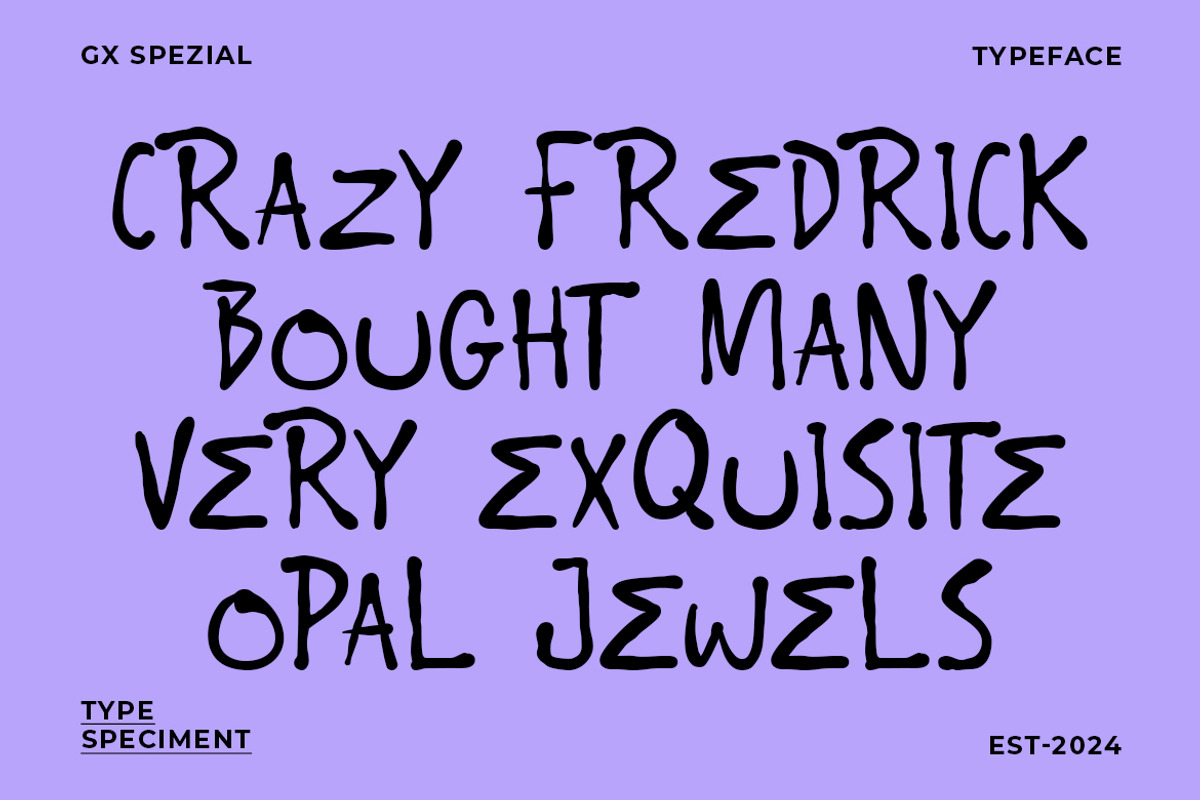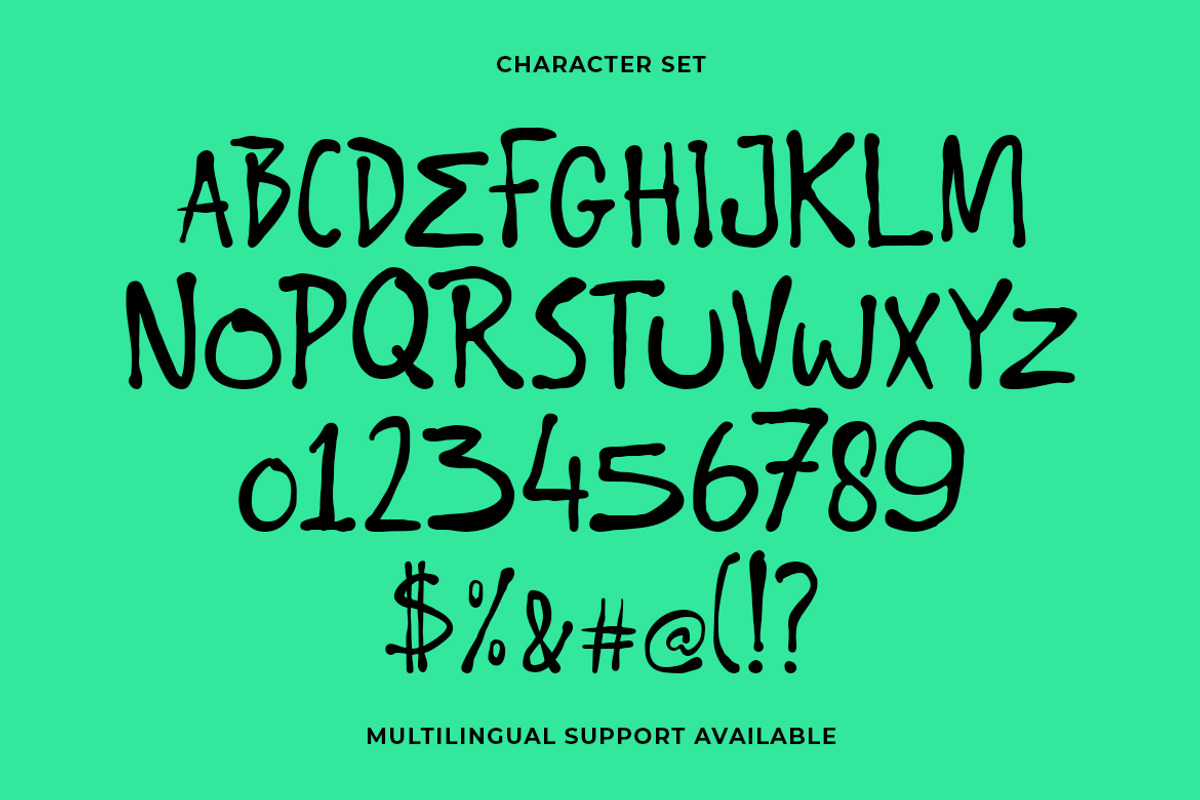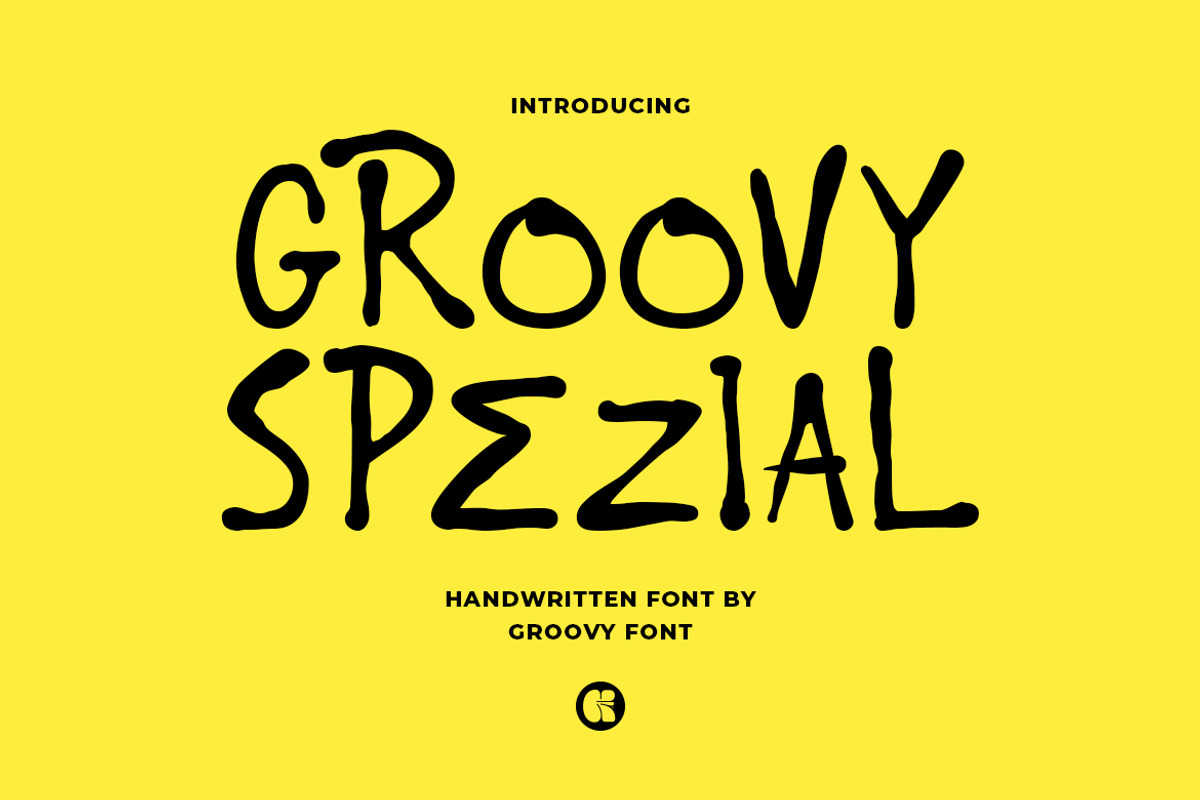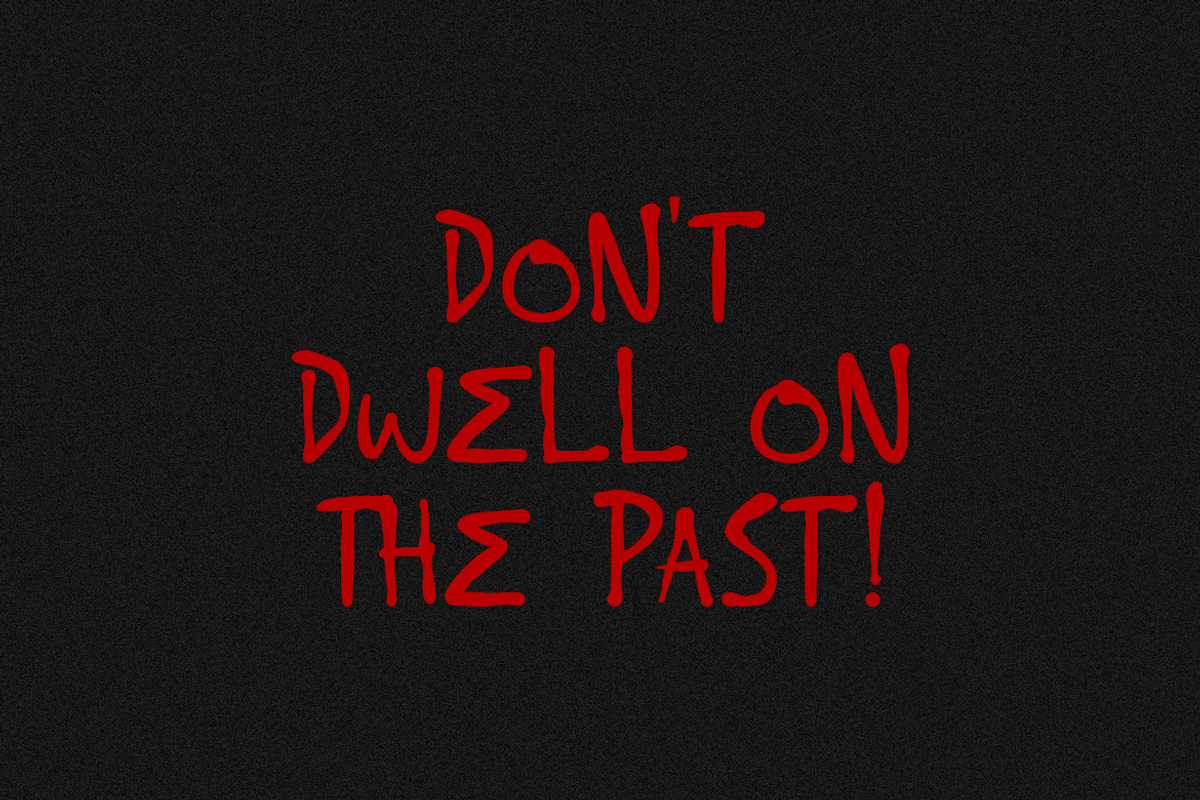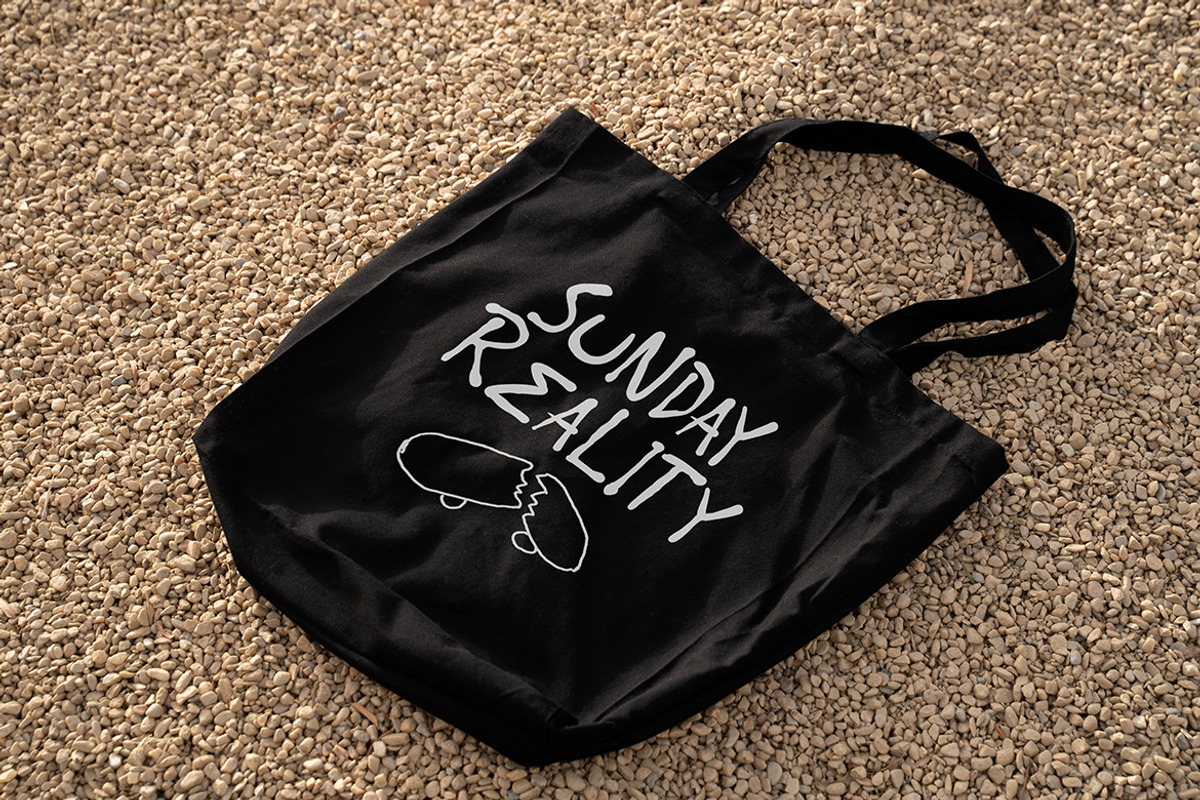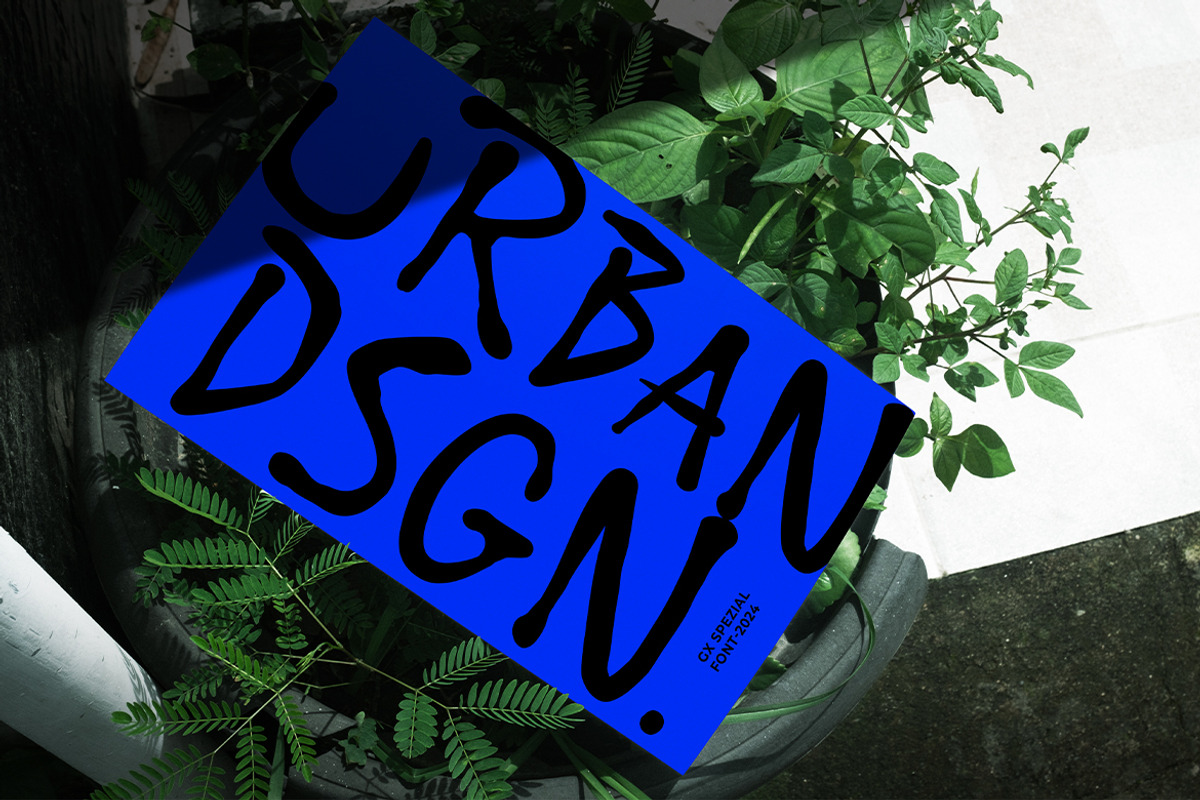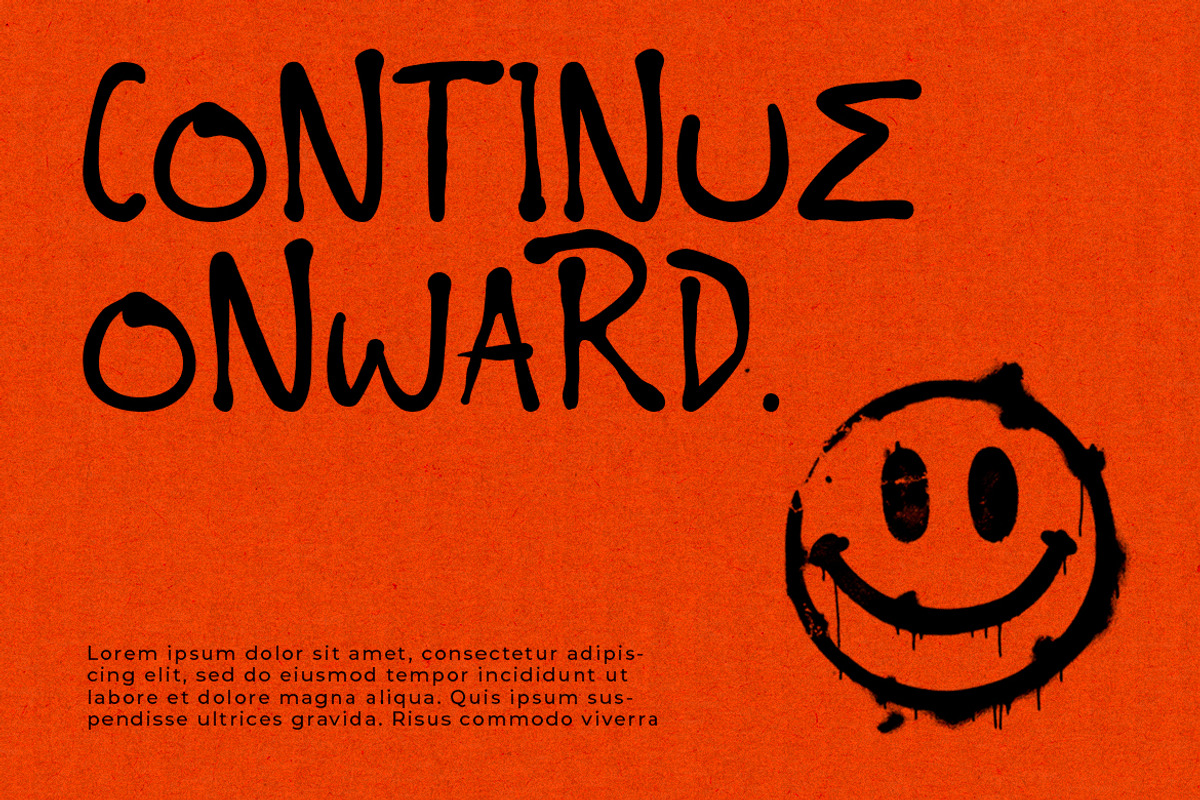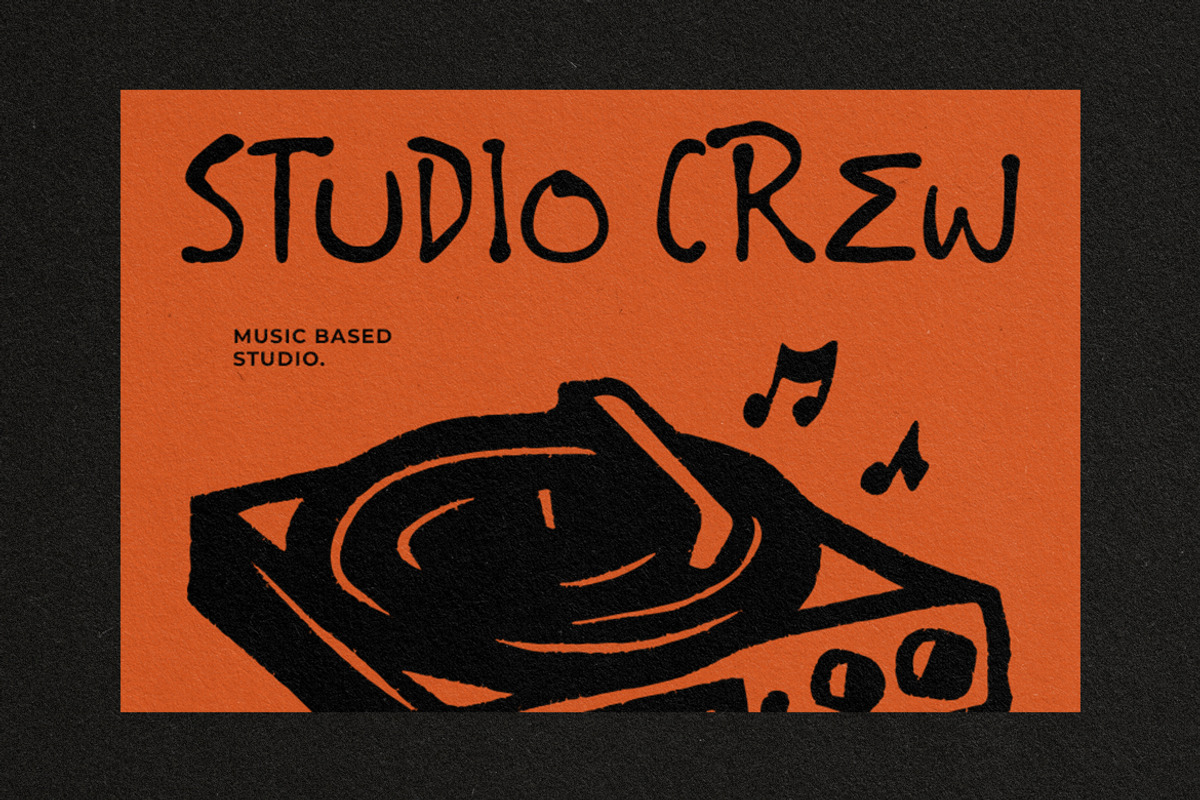
GF Spezial - Handwritten Font
Groovy Spezial font is a handwritten font designed in a spooky style, making it an ideal choice for Halloween-themed projects.
This font captures a haunting and eerie vibe, perfect for adding a touch of mystery and intrigue to your designs. The handwritten elements give Groovy Spezial a personal and unique feel, enhancing the overall thematic effect.
Whether used for invitations, posters, or social media graphics centered around Halloween festivities, this font exudes a creepy and atmospheric quality that perfectly encapsulates the spirit of the season.
With its distinctive style and thematic suitability, Groovy Spezial adds a spooky charm to any design related to Halloween.